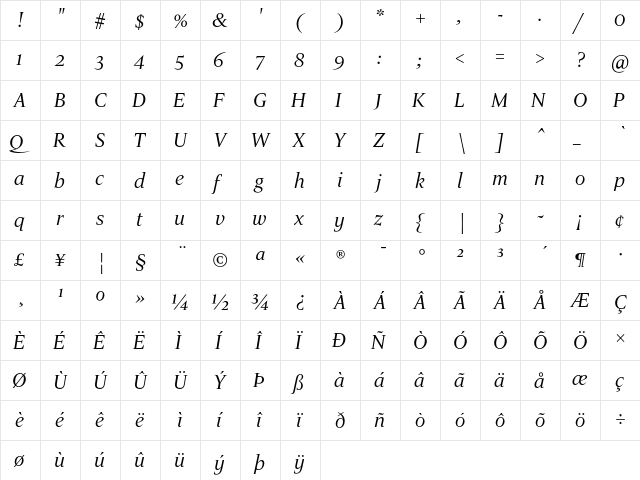
Luxury Text Italic
Italic · House Industries Christian Schwartz & Dino Sanchez ·
DesignerChristian Schwartz & Dino Sanchez
Design Context for Luxury Text Typeface
Luxury Text takes a measured approach to typography — its balanced proportions and neutral character make it a reliable workhorse for both digital and print work. Its italic angle brings a sense of urgency and motion to the letterforms.
Pro Tip: Try Luxury Text for annotation and caption copy alongside an upright companion — the contrast in angle creates a dynamic but ordered typographic system.